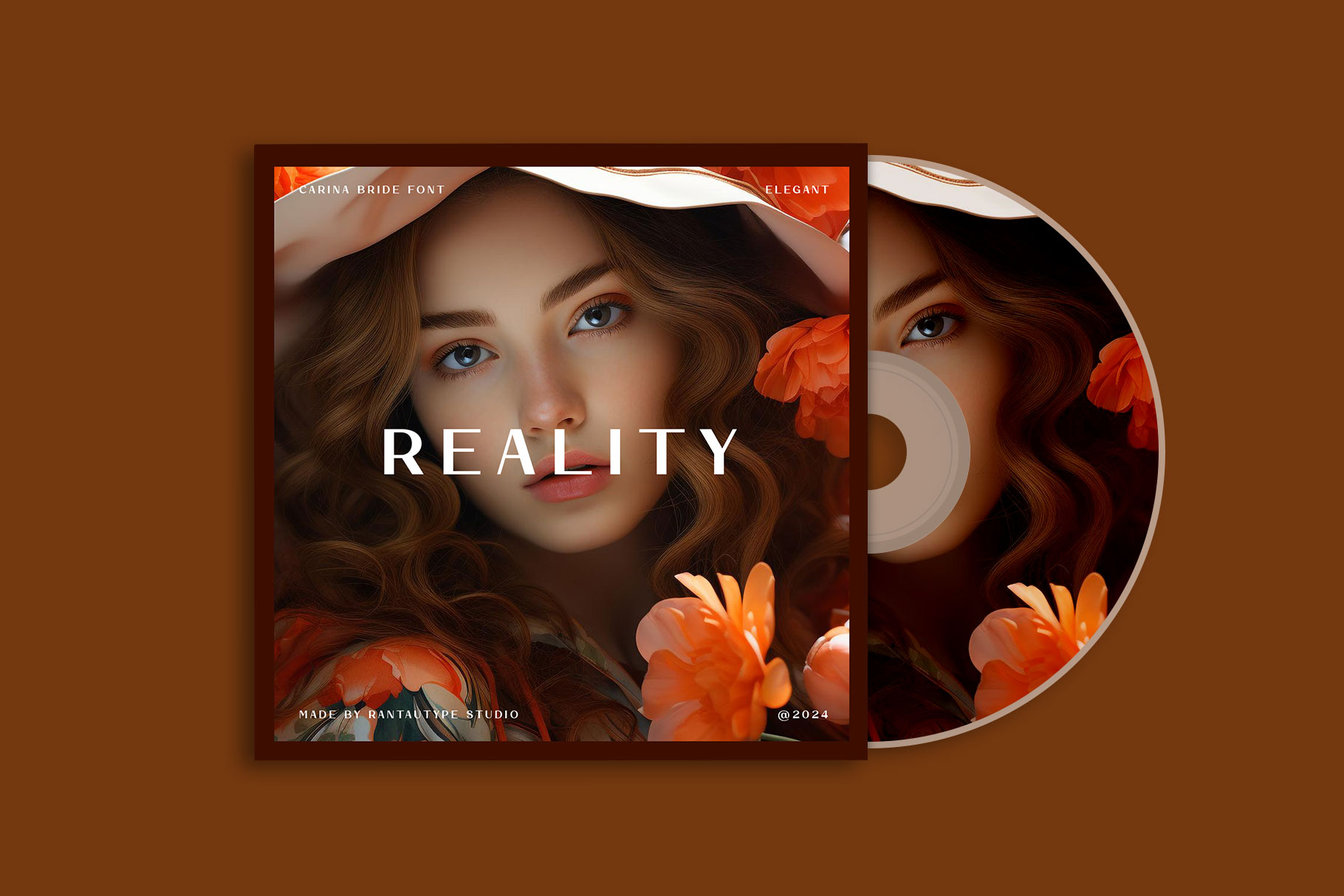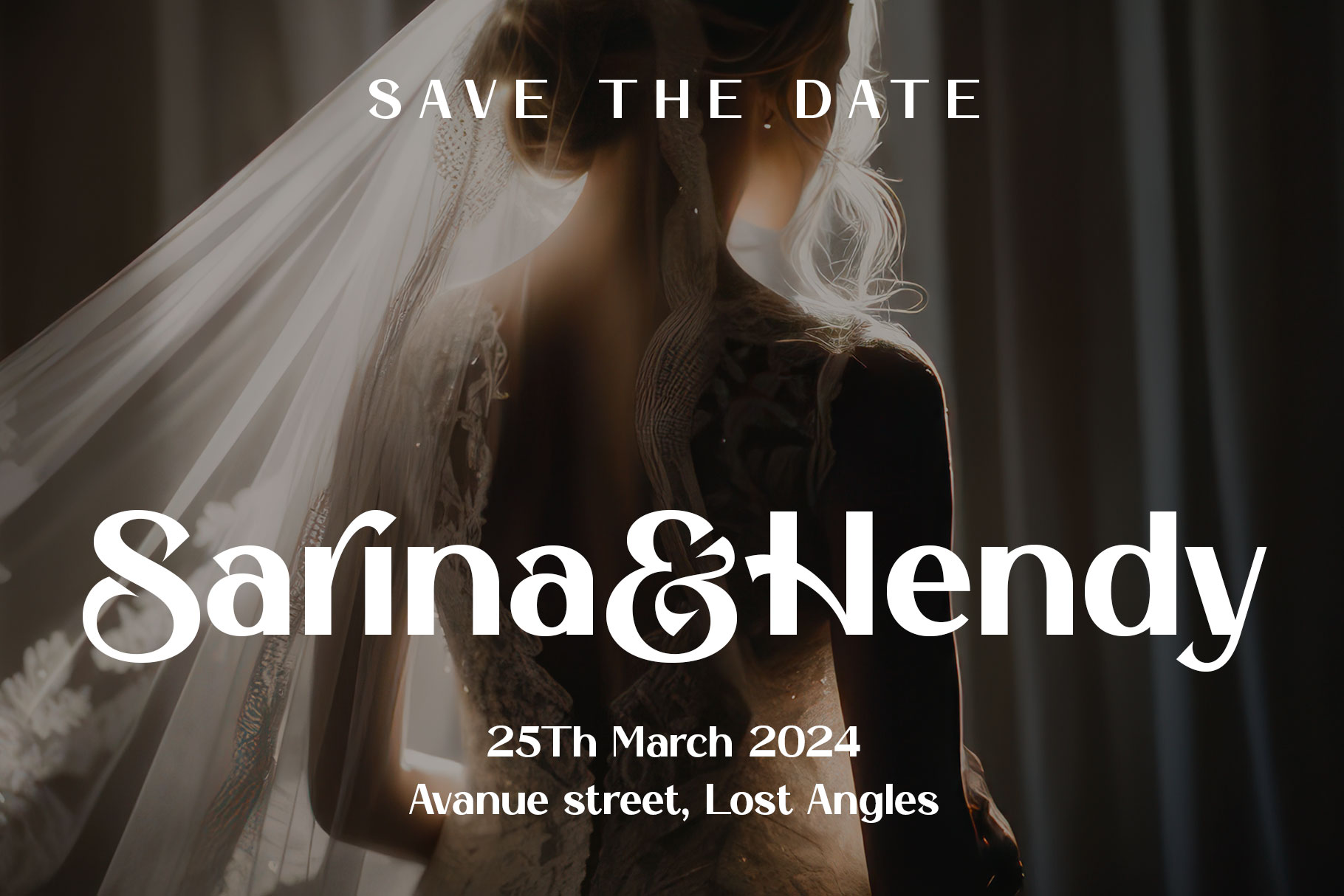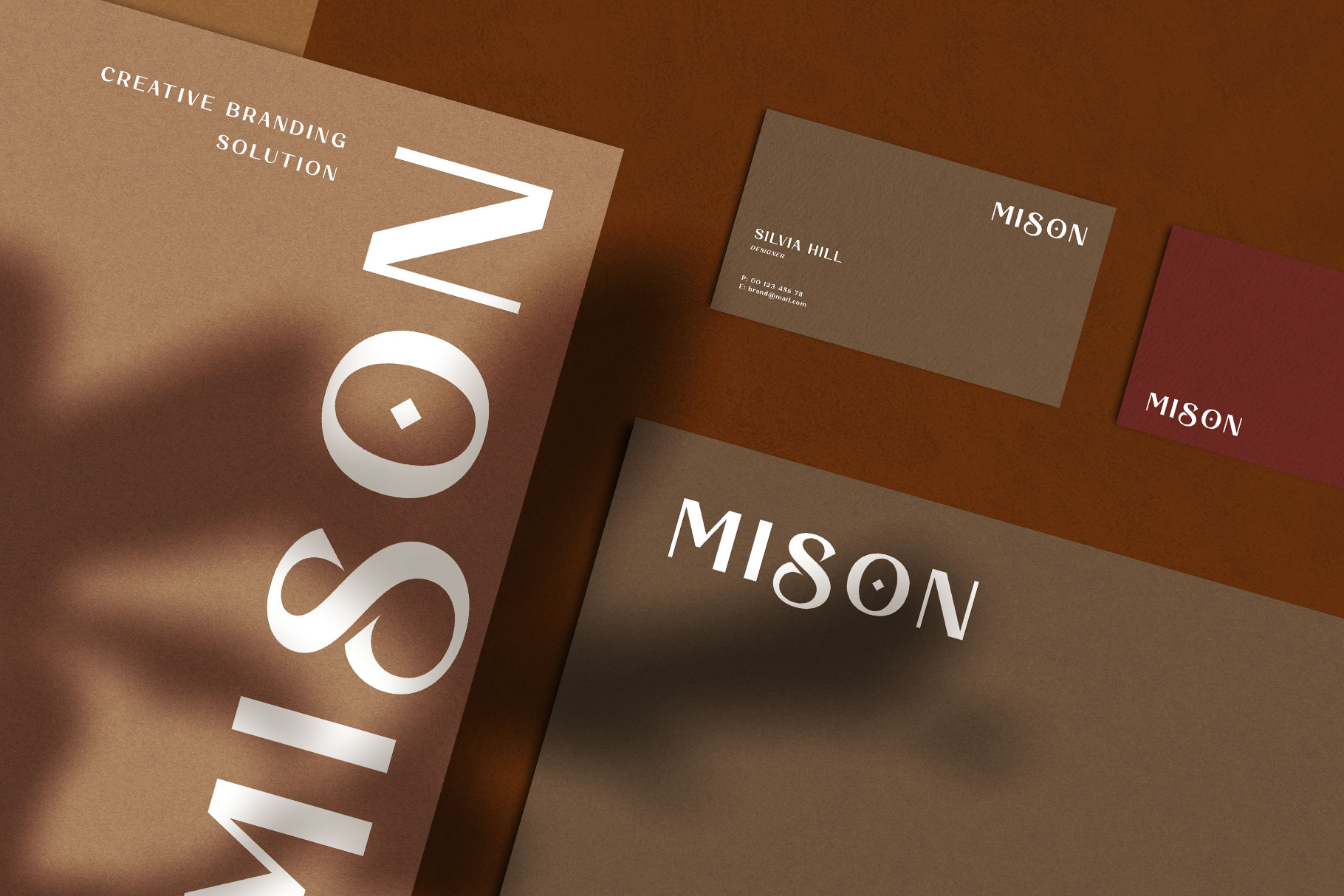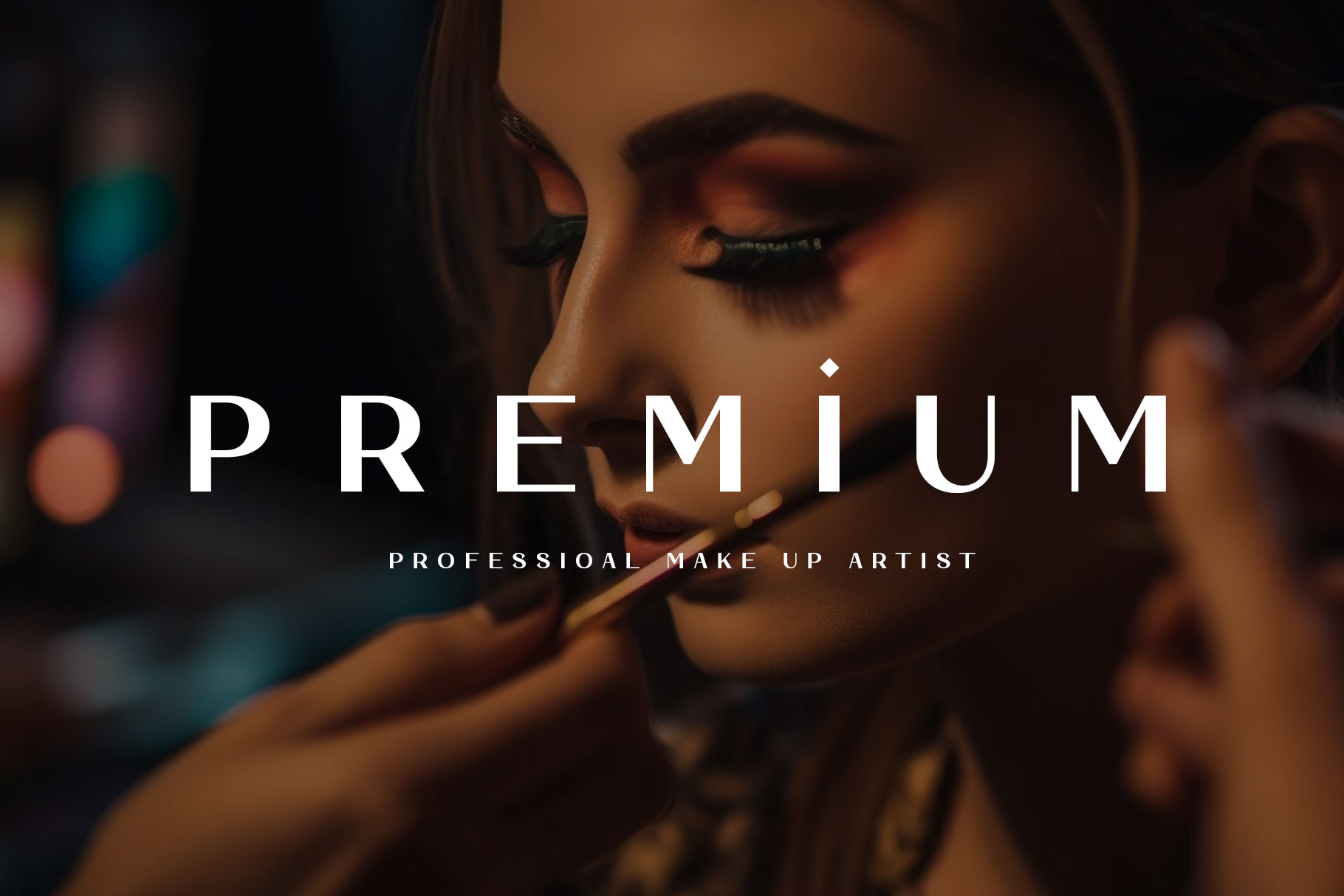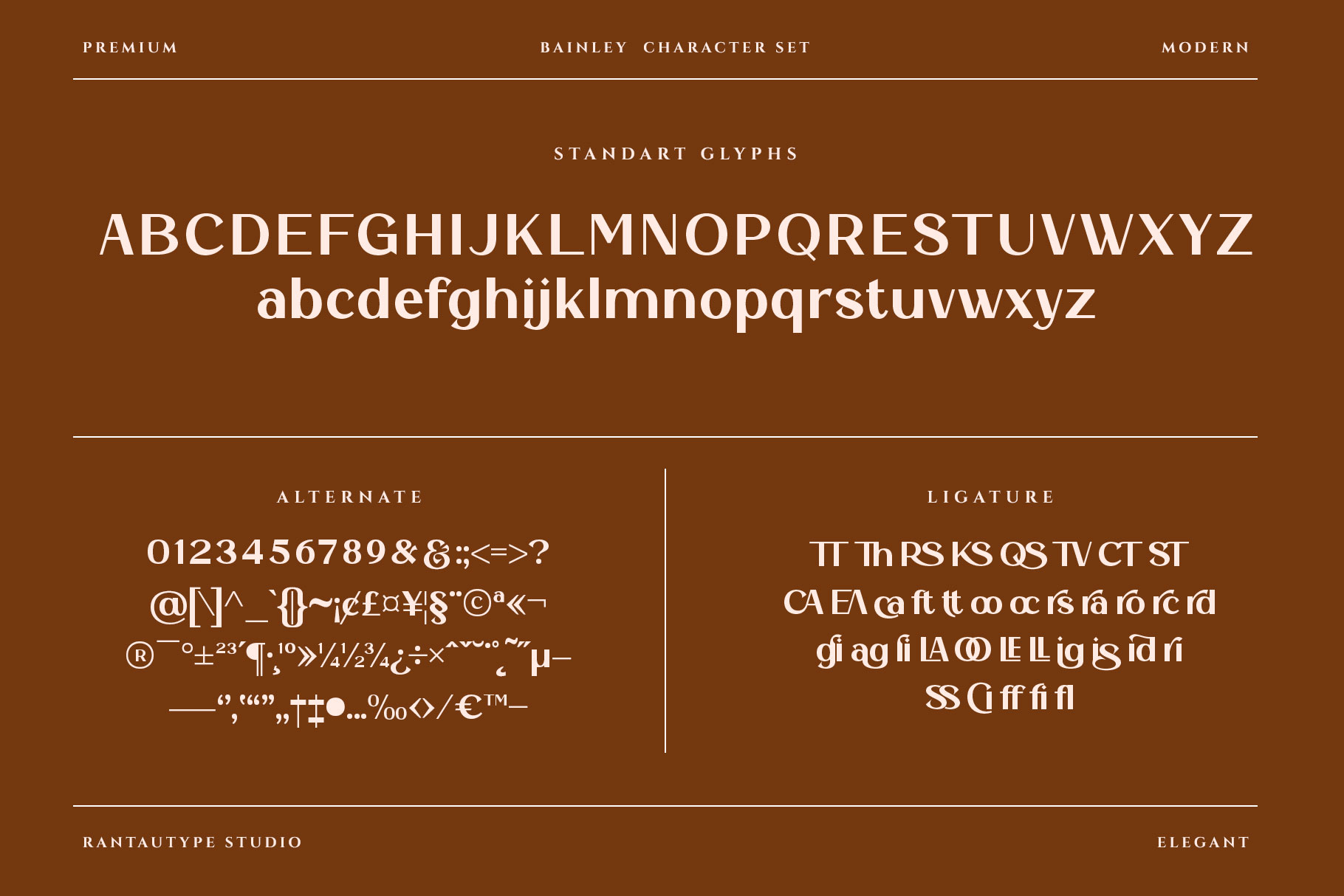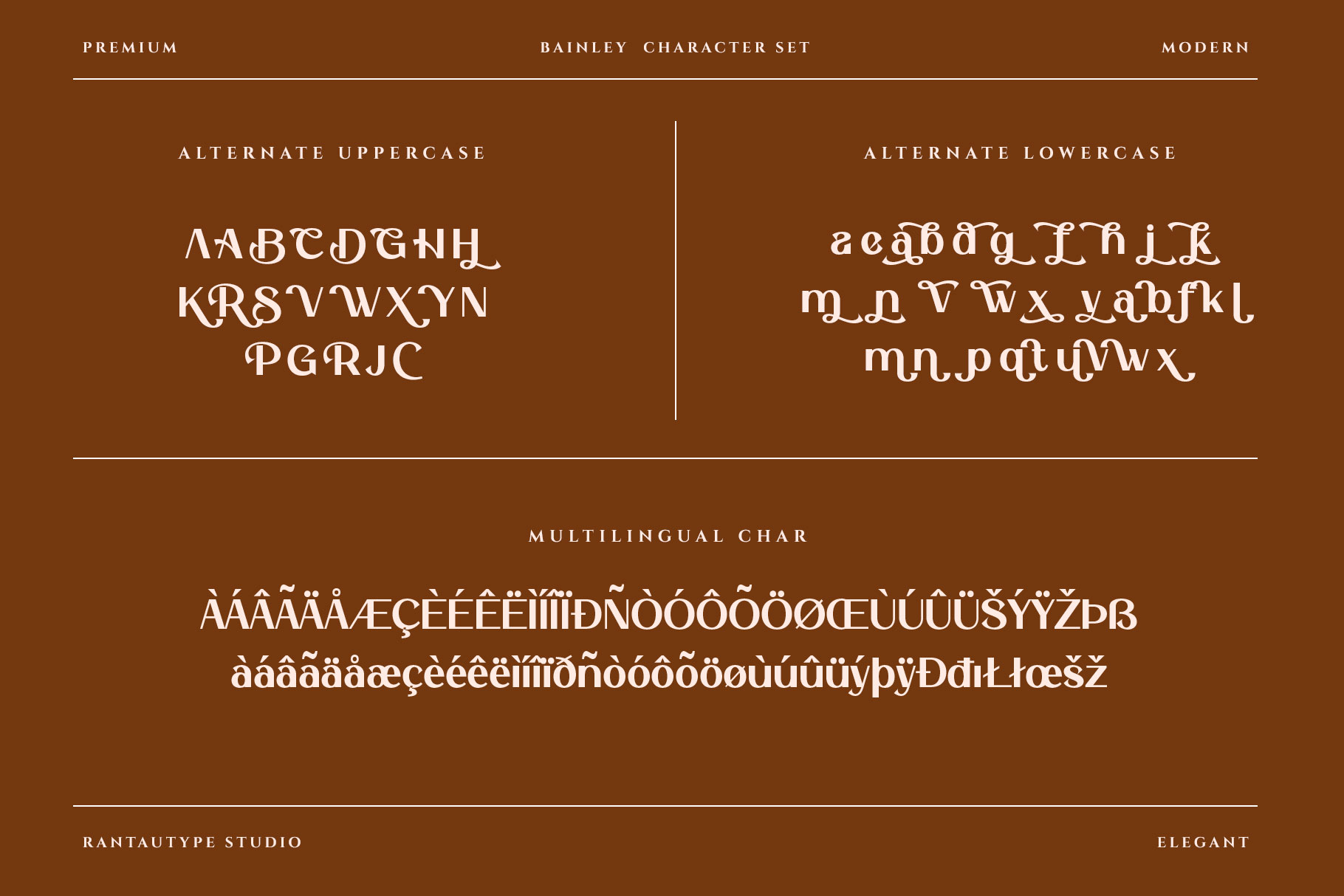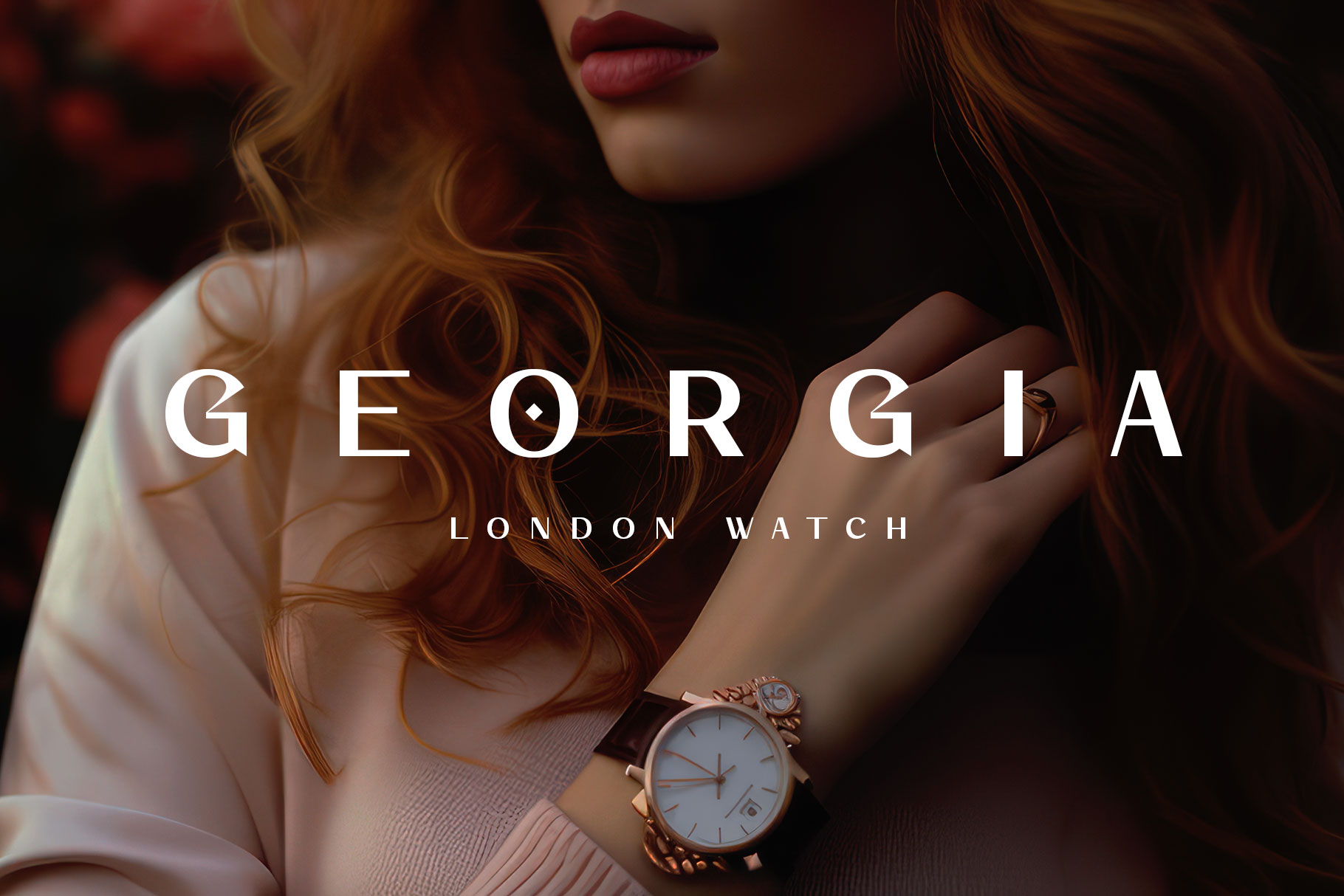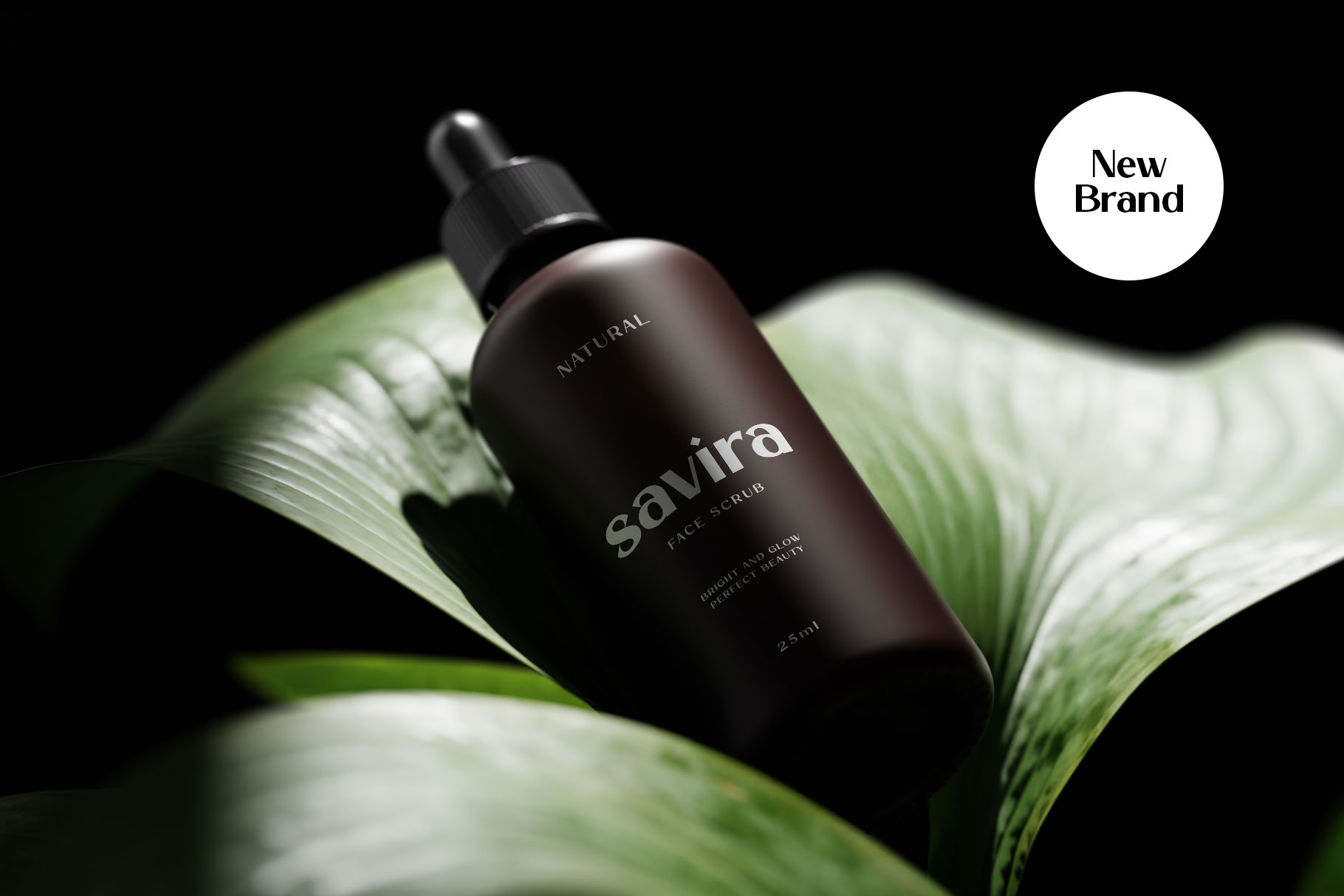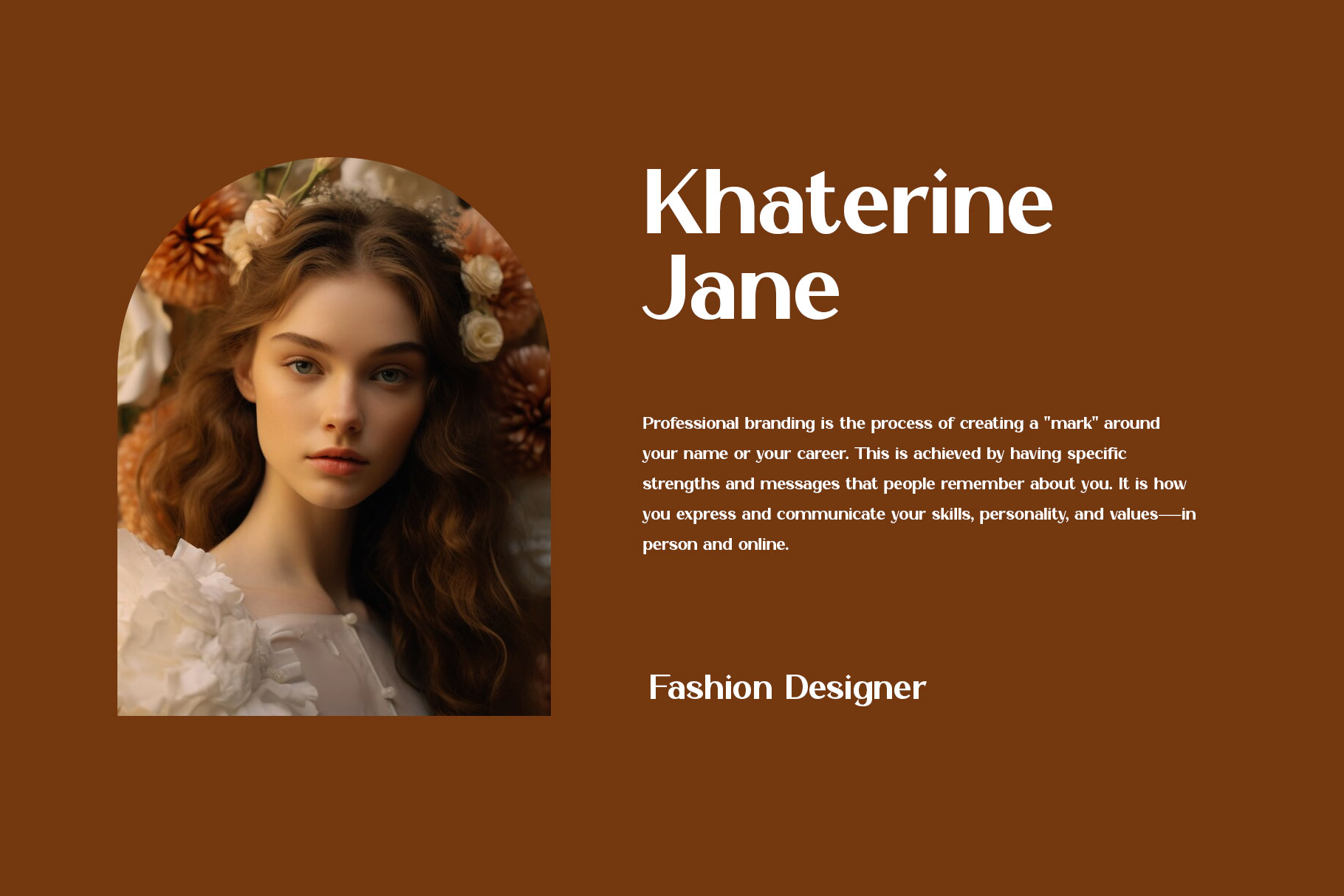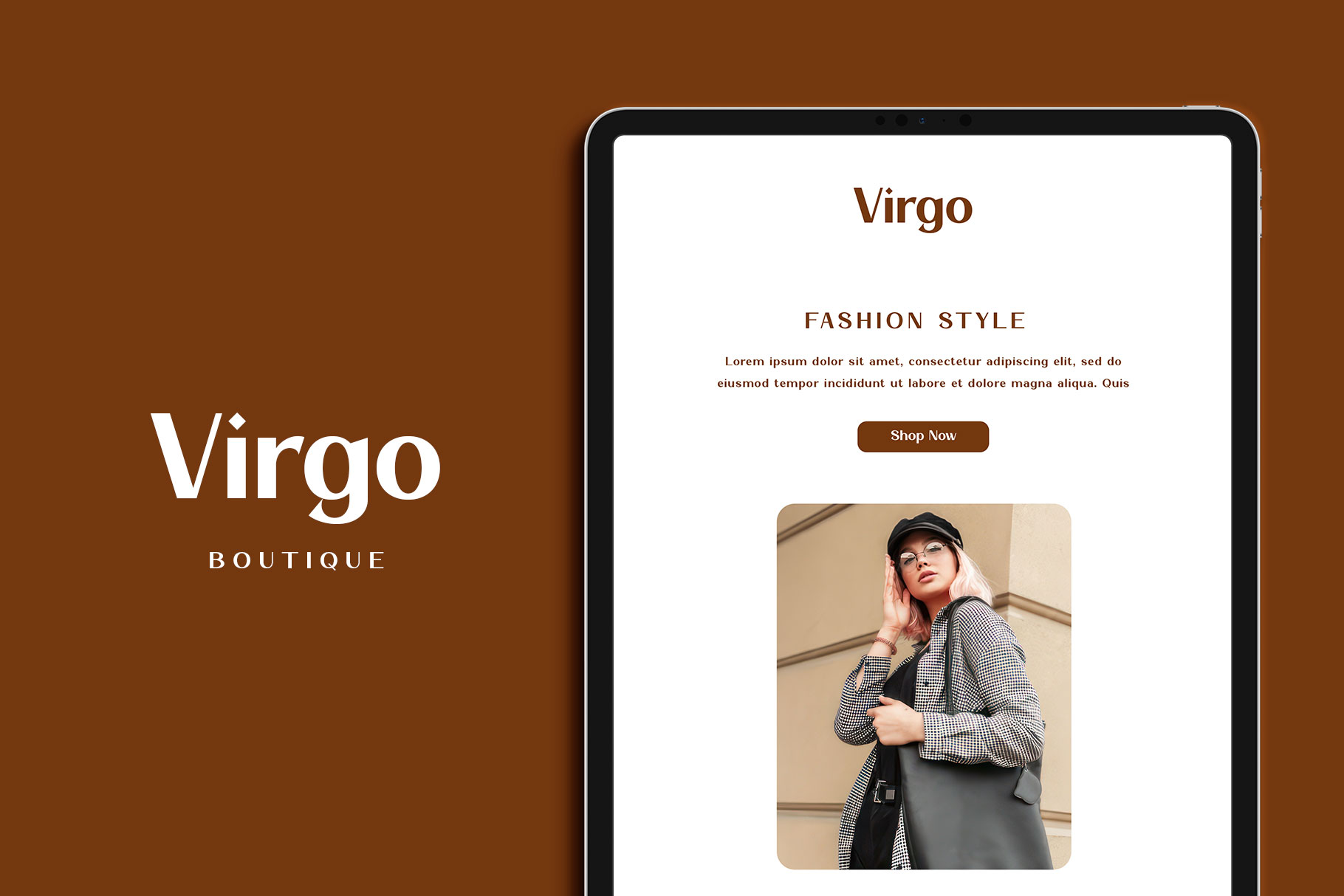
Bainley Modern Feminine Typeface
Bainley is modern sans typeface with luxorious and elegancy style. Bainley come with much feature to bring a creative idea.
Bainley is a perfectly choice for any creative endeavor, chic, lifestyle design such as logos, advertisements, watermark on photography, stationery, branding project, display and magazine, invitation, corporate brand, product design, label, business project and many other project with elegant touch.